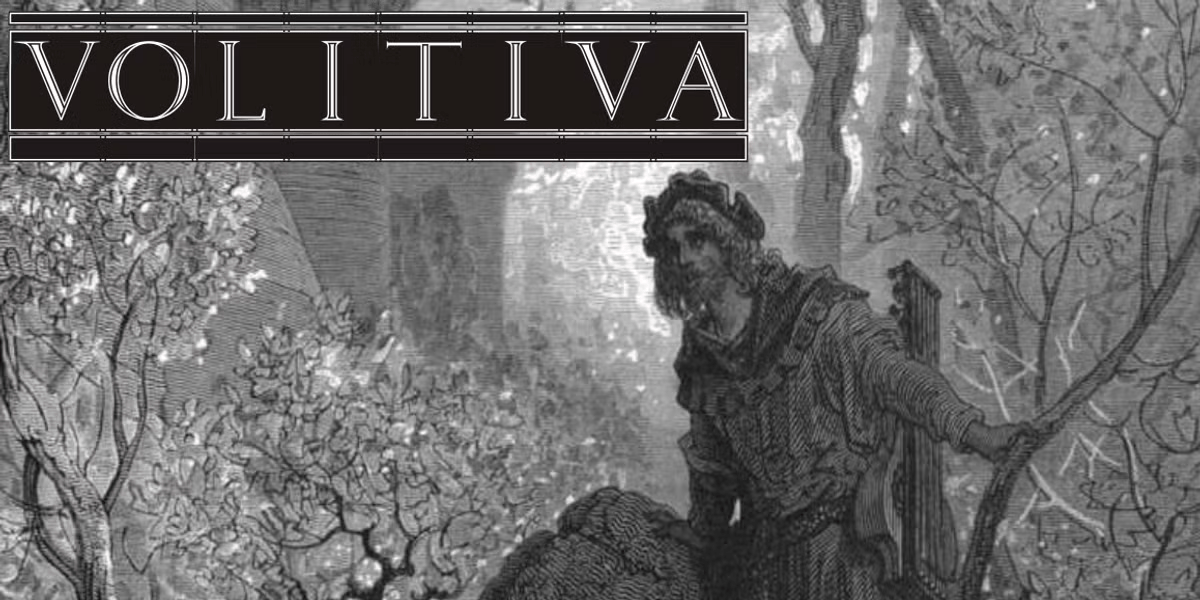
Volitiva
Font Family by Intellecta Design
A roman capital typeface inspired on Ludovico Vicentino Arrighi capitals from XVI century and a roman lapidary visual from engraved earlyers gravestones.